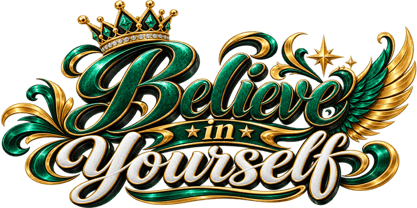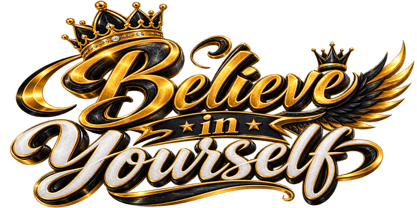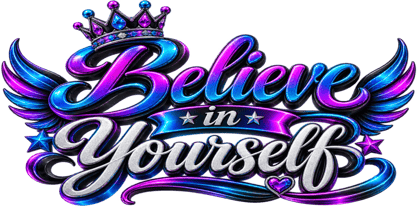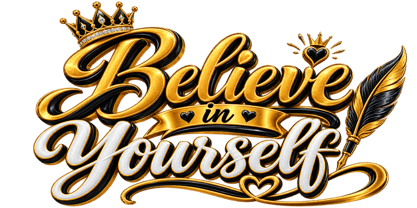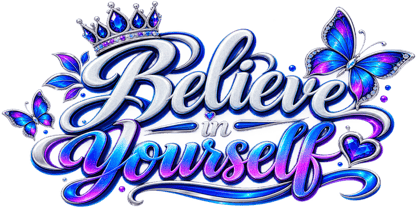
Believe In Yourself
por Muhammad Azhar Khatri
La familia tipográfica Believe In Yourself fue diseñada por Muhammad Azhar Khatri y publicada por Muhammad Azhar Khatri. Believe In Yourself contiene 1 estilos. Más información sobre esta familia
Believe in Yourself is a luxurious, modern display typeface with elegant flowing curves, bold 3D depth, smooth bevels, and stylish decorative details. Its sophisticated lettering combines motivational character with a premium, artistic appearance, making it ideal for quotes, posters, logos, T-shirts, social media graphics, branding, and inspirational designs.